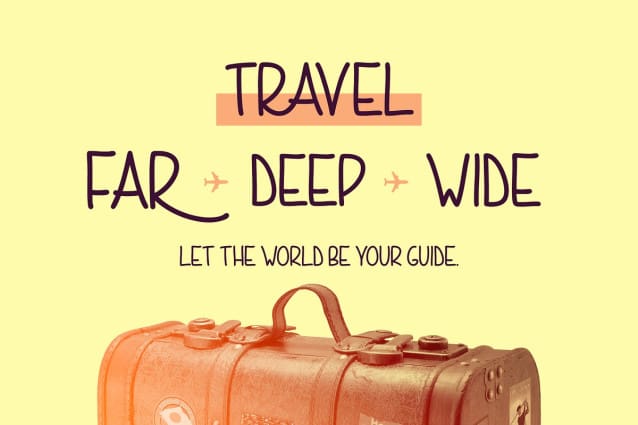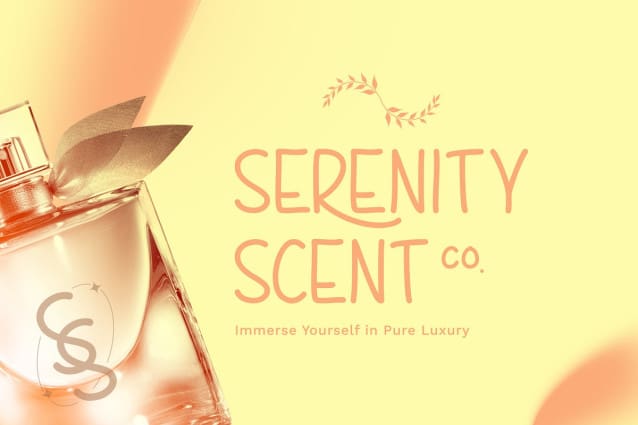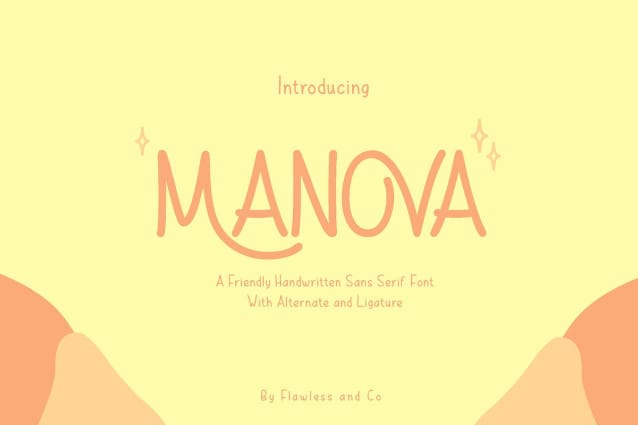
Manova Hand Font
Introducing “Manova Hand” – a friendly and approachable handwritten sans serif font with alternate and ligature that adds a touch of warmth and authenticity to your designs. With its smooth and flowing letterforms, Manova strikes the perfect balance between casual and professional, making it ideal for a wide range of creative projects. This font is suitable for branding, business, logos, magazines, and others.